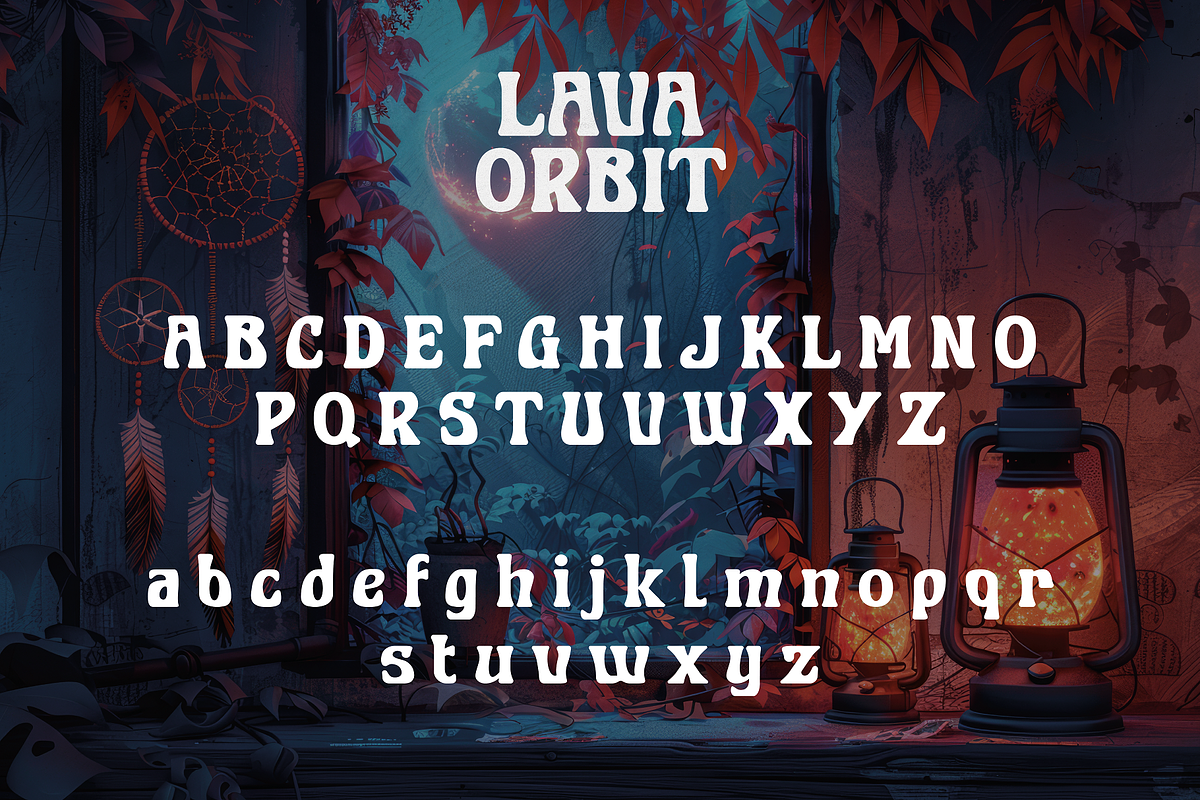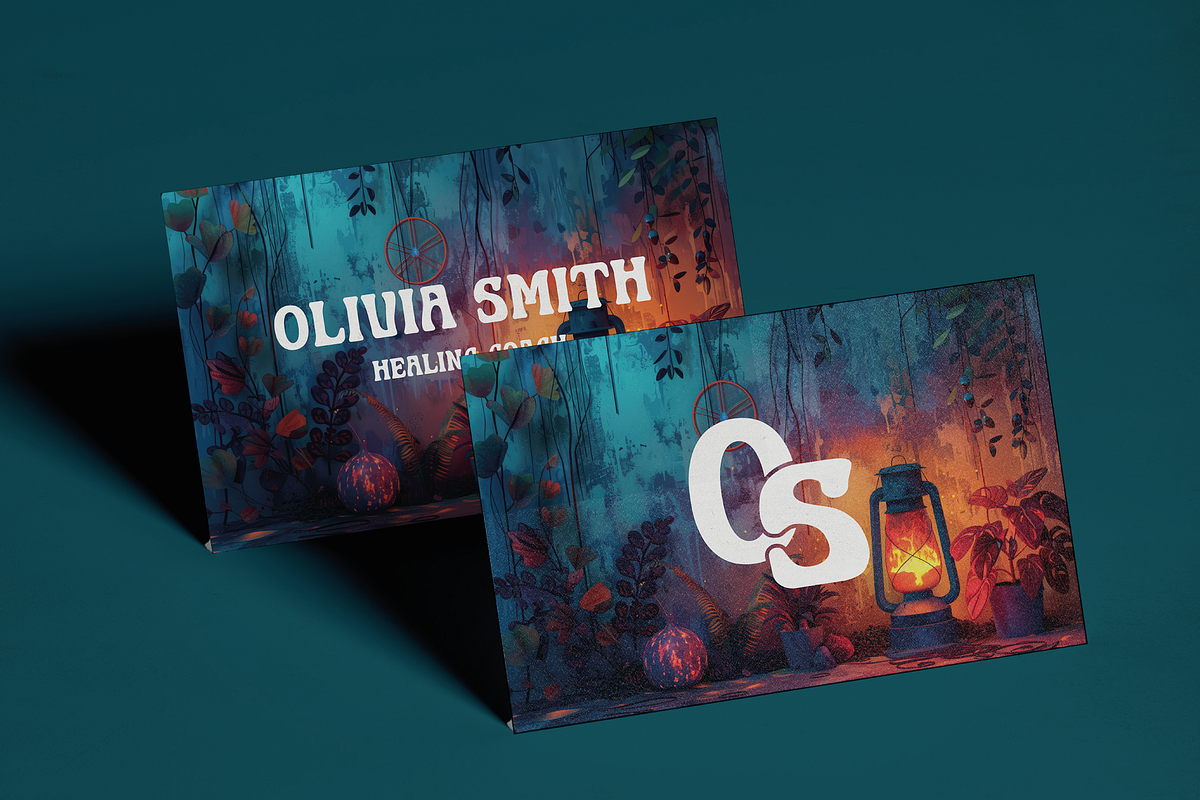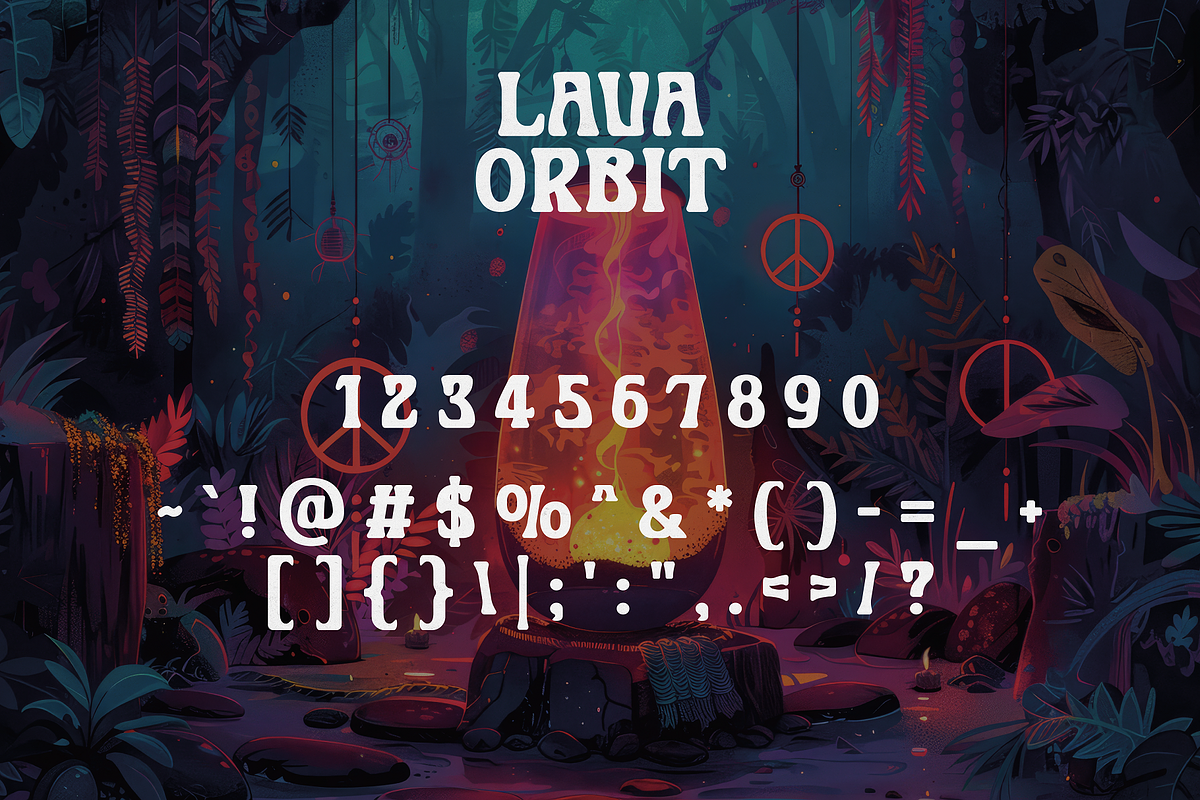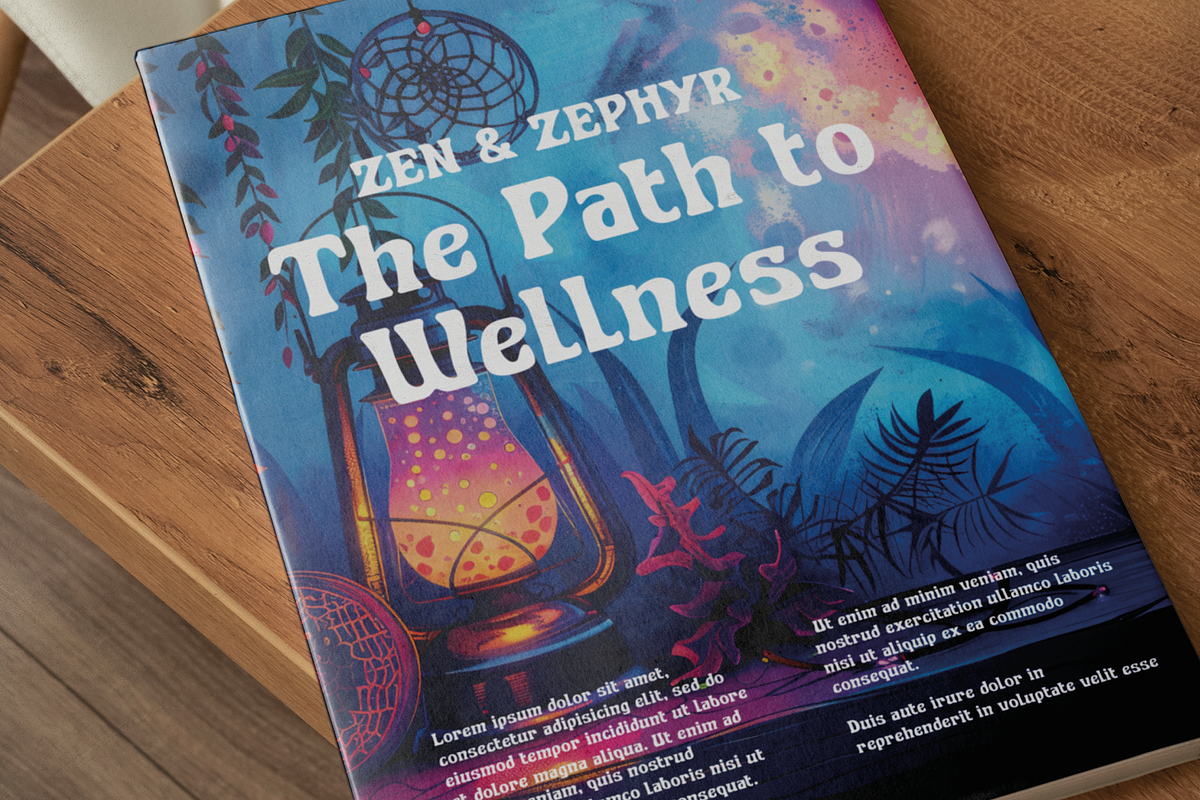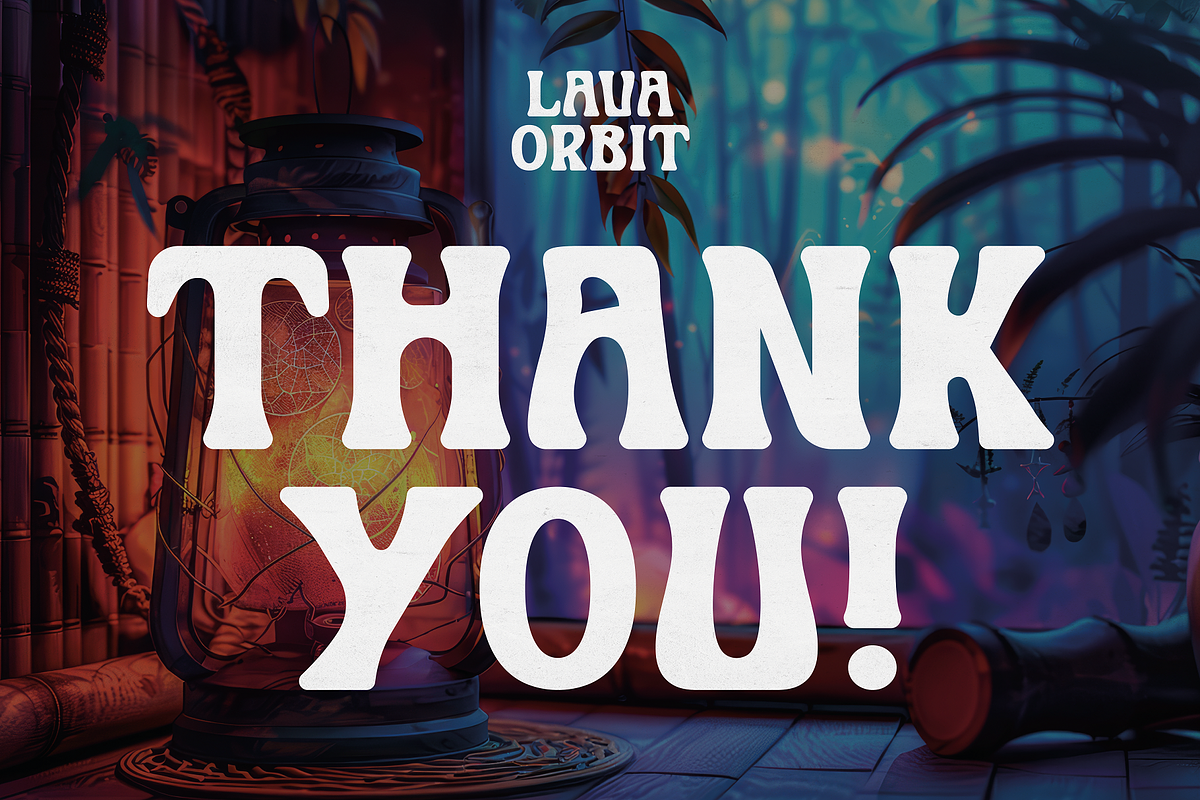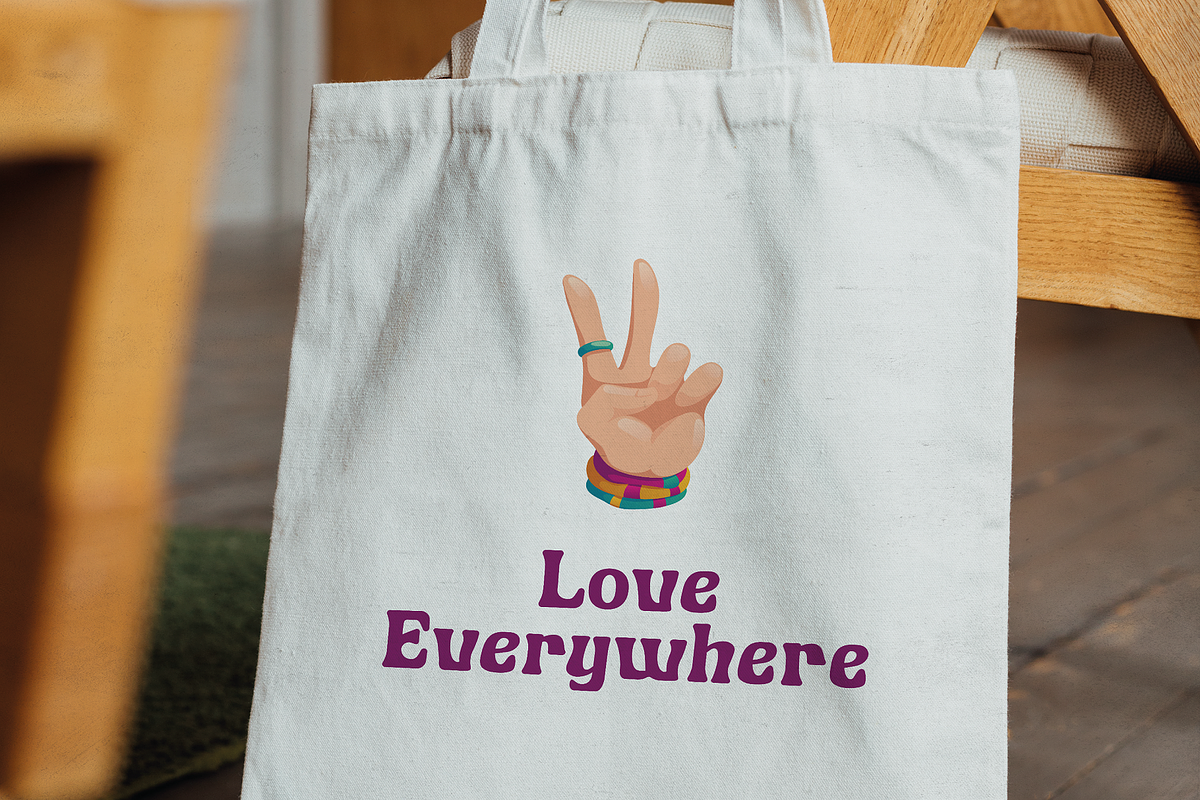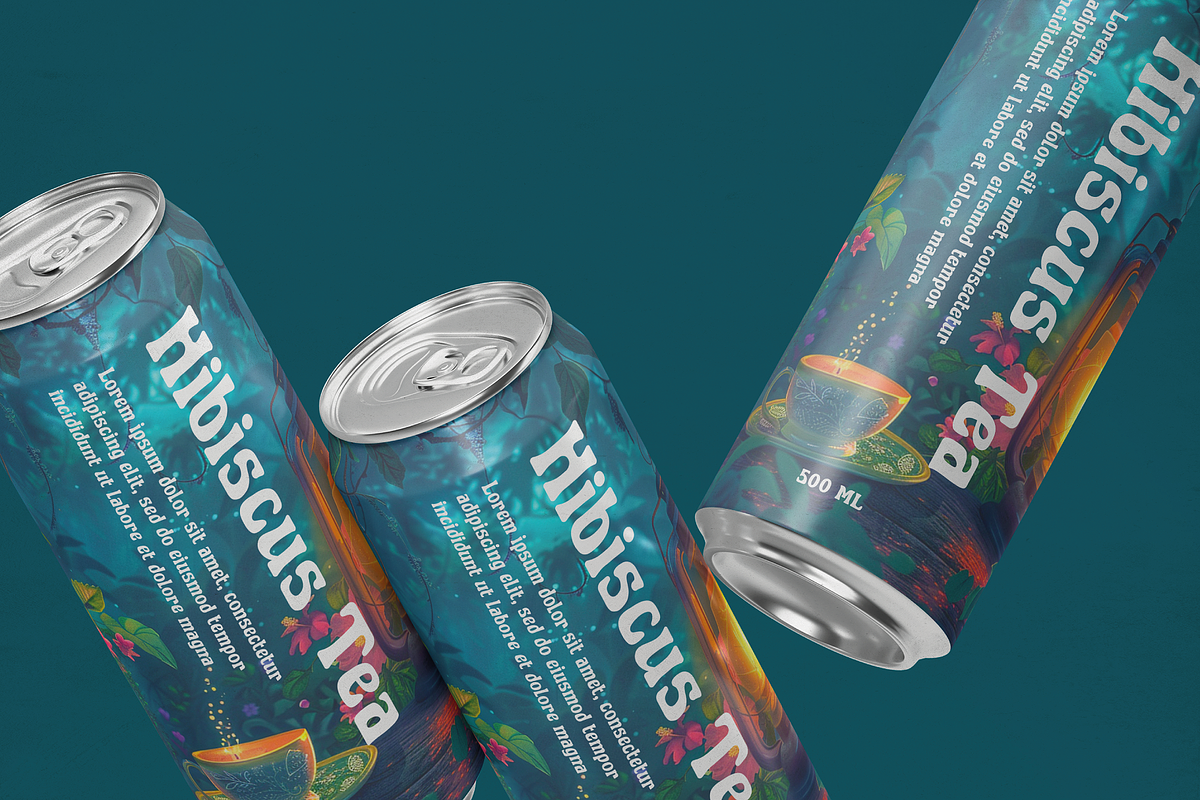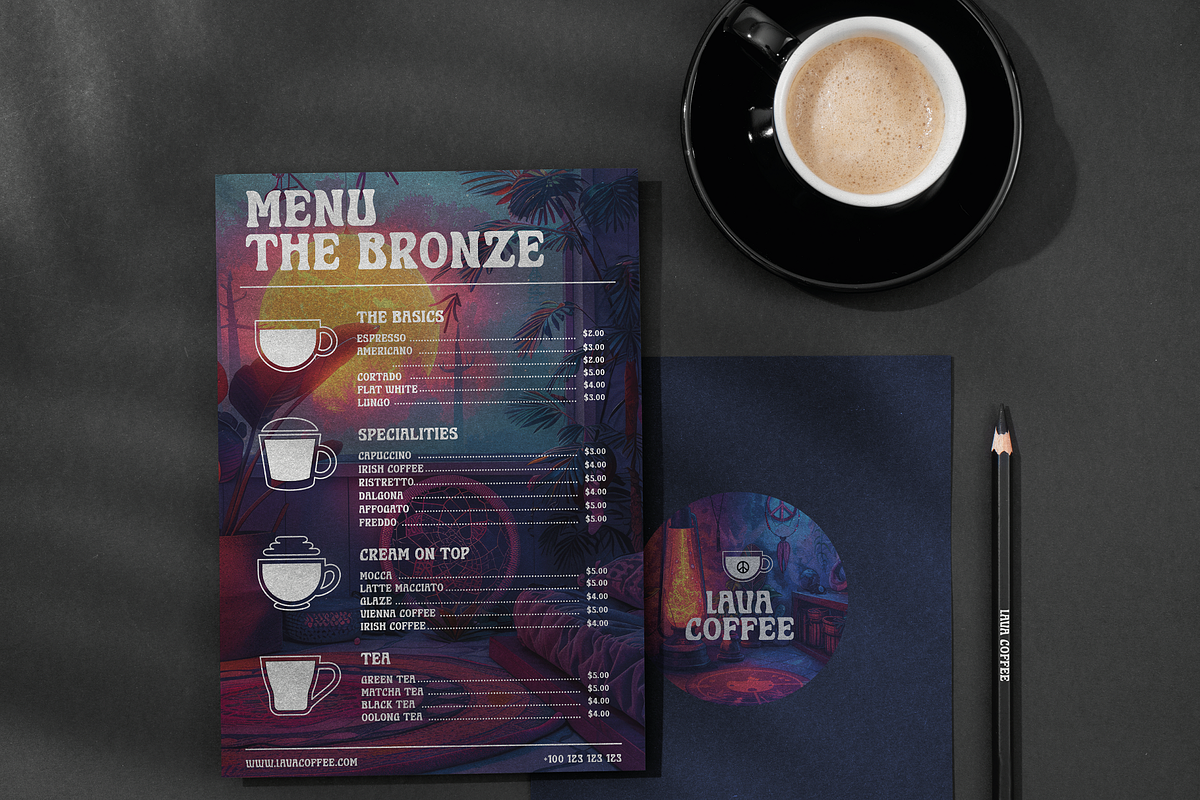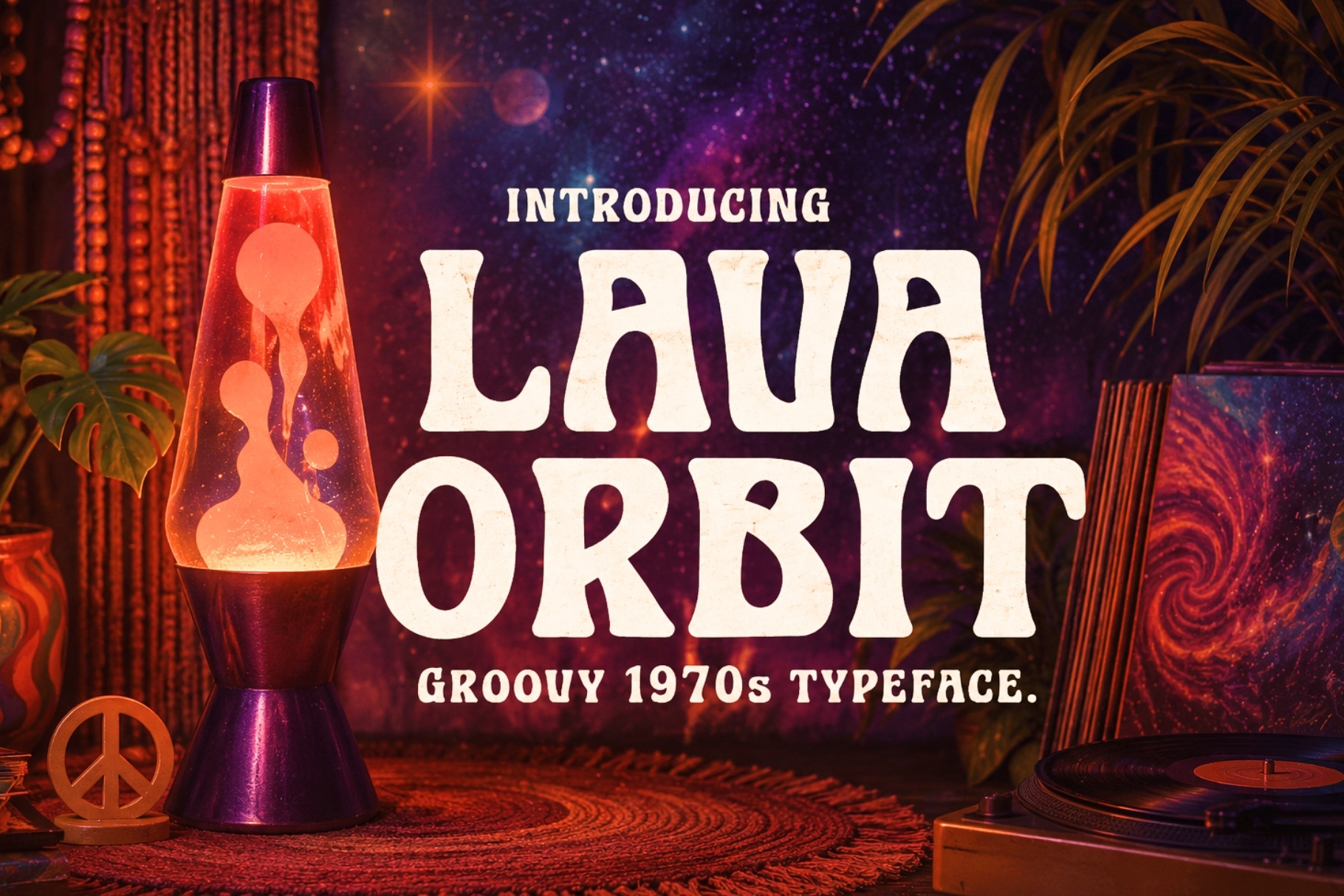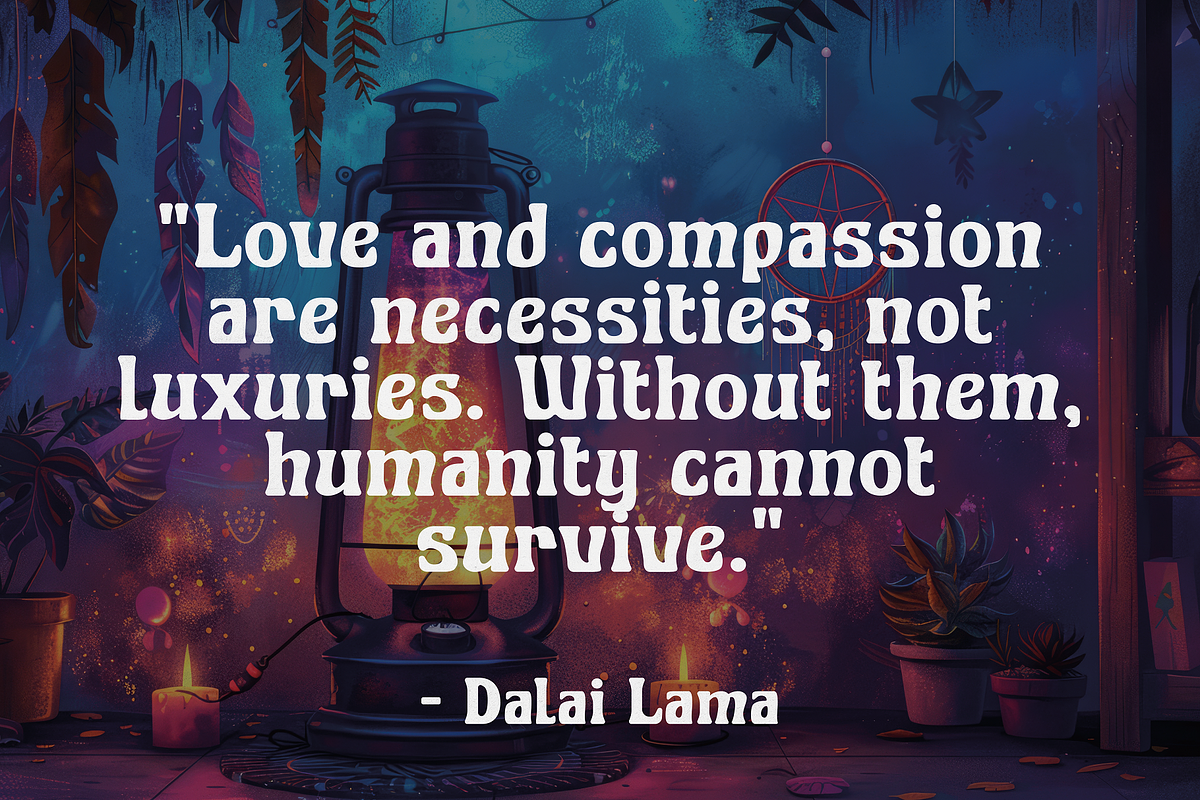
Lava Orbit - Surreal 1970s Typeface
Introducing Lava Orbit, a far-out typeface inspired by the iconic lava lamps of the 1970s. Dive into the groovy era with a typeface that captures the free-spirited, vibrant essence of the decade we should never forget. Lava Orbit brings the funky, fluid shapes of lava lamps to life in your designs, making every project a nostalgic trip back in time.
Lava Lamp Inspired: Each character in Lava Orbit flows with the mesmerizing, organic shapes reminiscent of classic lava lamps.
70s Groovy Vibes: Evoke the spirit of the 1970s with a typeface that embodies the bold, psychedelic style of the era.
Vibrant and Playful: Add a splash of fun and energy to your designs with Lava Orbit’s dynamic and lively forms.
Versatile Use: Perfect for posters, album covers, retro branding, event flyers, and any project that needs a touch of 70s flair.
High Impact: Make a bold statement with a typeface that’s designed to stand out and grab attention.
Ideal For:
Music and Entertainment: Capture the essence of the 70s in album covers, concert posters, and event promotions.
Retro Branding: Give your brand a nostalgic twist with a typeface that channels the funky, free-spirited vibe of the 70s.
Event Flyers and Invitations: Create eye-catching designs for themed parties, festivals, and other events celebrating the groovy era.
Creative Projects: Bring a touch of retro charm to magazines, websites, and any creative endeavor.
Why Choose Lava Orbit?
Lava Orbit isn’t just a typeface; it’s a journey back to one of the most colorful and exciting decades in history. Whether you’re looking to invoke nostalgia or simply want to add a unique, playful touch to your designs, Lava Orbit is the perfect choice.
Step into the groove with Lava Orbit Typeface and let your designs flow with the psychedelic energy of the 70s.